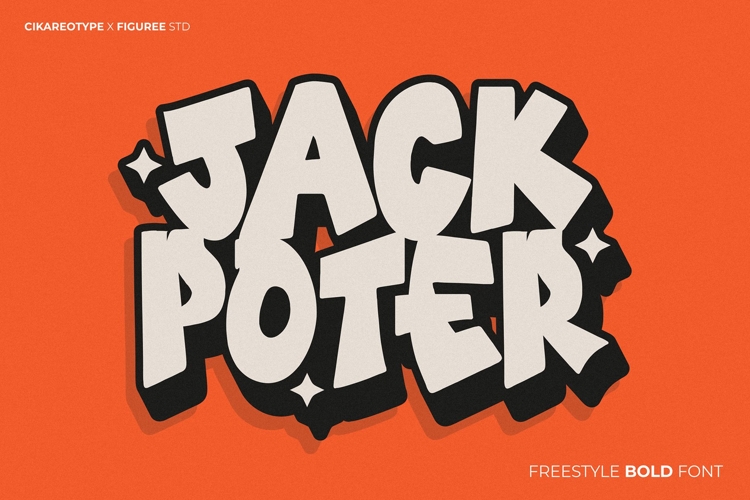
Jackpoter - Freestyle Bold Font
Jackpoter is a best-selling freestyle bold font that brings an energetic and dynamic flair to any design. This font's robust and playful style makes it perfect for projects that demand a powerful and eye-catching visual presence.
🎯 Bold Expression: Jackpoter’s thick, bold strokes exude confidence and creativity, making it an excellent choice for headlines, posters, logos, and more. Its freestyle nature captures a sense of spontaneity and movement, adding a lively touch to your designs.
🎨 Versatile Use: Designed to adapt to various themes and purposes, Jackpoter is ideal for both digital and print projects. Whether you're creating marketing materials, social media graphics, or branding elements, this font stands out with its unique charm.
🖌️ Dynamic Aesthetic: Each character in Jackpoter is crafted with a sense of artistic freedom, resulting in a font that feels both handcrafted and contemporary. This dynamic aesthetic is perfect for projects that need a bold and creative edge.
🚀 Impactful Presence: Jackpoter commands attention with its strong visual impact. Its boldness ensures your message is communicated clearly and effectively, making a memorable impression on your audience.
🌟 Unleash Creativity: With Jackpoter, you can unleash your creativity and experiment with various design styles. Its freestyle nature allows for innovative compositions, giving you the freedom to create unique and captivating visuals.
Elevate your designs with Jackpoter, the freestyle bold font that combines robust expression with dynamic charm. A best-selling choice for creatives, Jackpoter is your go-to font for adding boldness, creativity, and a striking visual impact to any project.